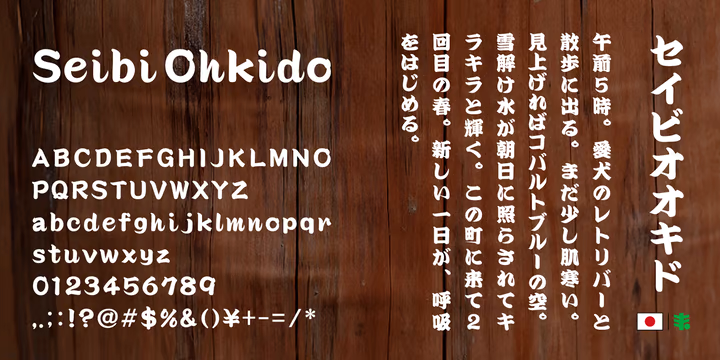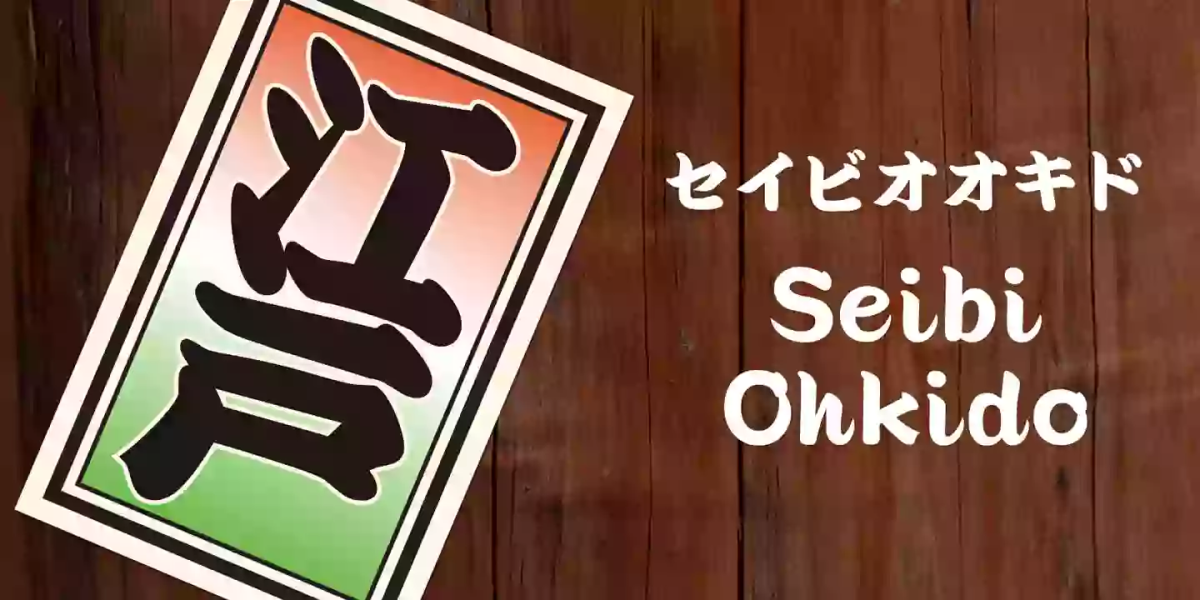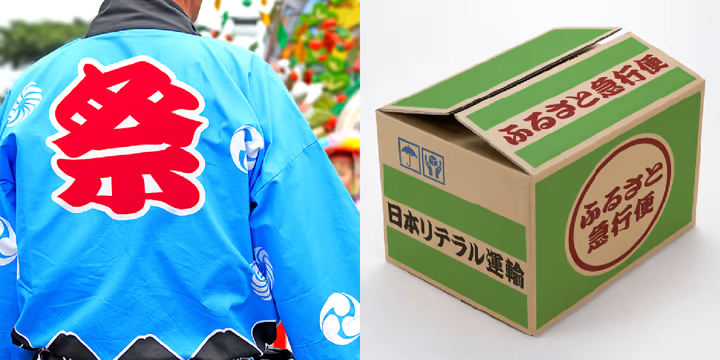
Seibi Ohkido Font
It is a font based on “yose-style characters” used in entertainment during the Edo period for signboards and the rankings of rakugo performers and flyers to attract customers. Kanji in the original yose-style characters is balanced with kana, and is made easier to read by controlling brushstrokes at oblique angles, rising to the right. While the font is arranged in a contemporary style tailored to both horizontal and vertical typesetting, you can still enjoy the essence of handwritten yose-style characters.
Where Seibi Ohkido Font works best
Seibi Ohkido Font is built for size: event posters, hero headlines and billboard-style layouts.
High contrast display type like Seibi Ohkido Font reads instantly in thumbnails and motion graphics.
What is Seibi Ohkido Font good for?